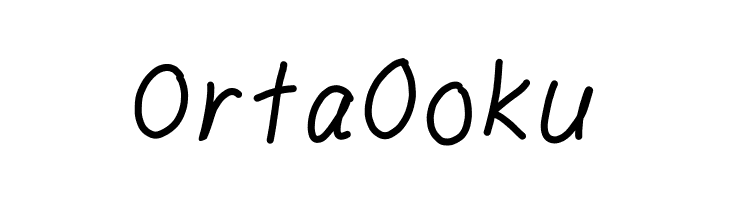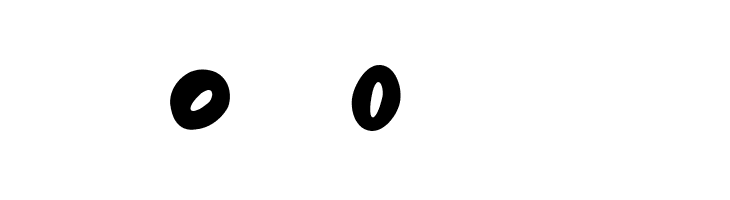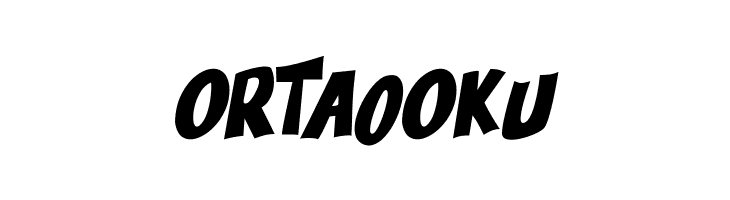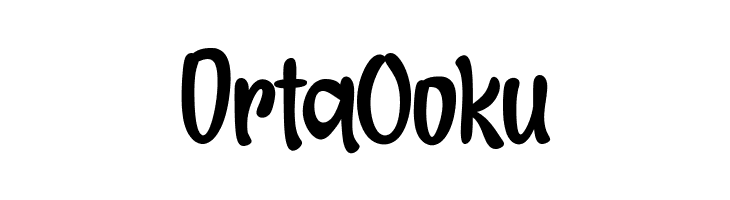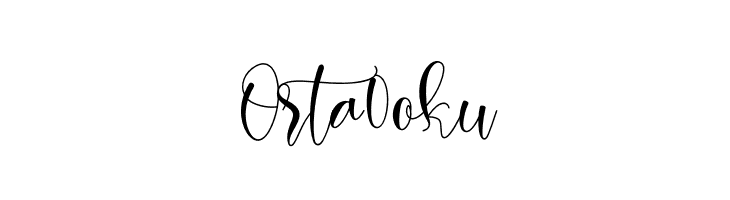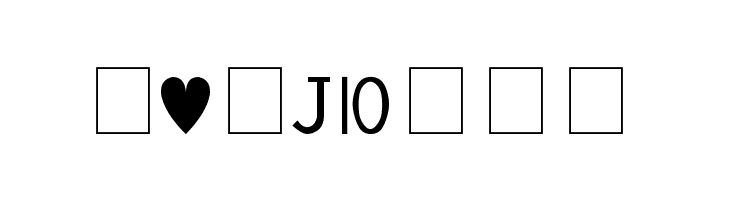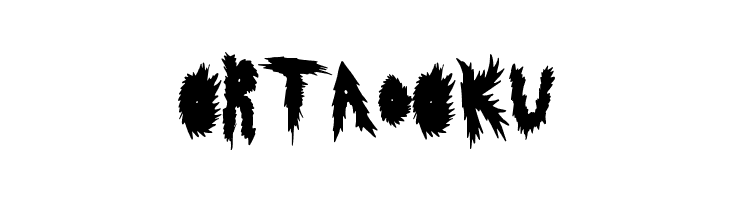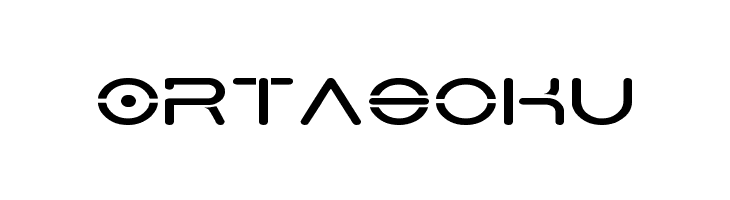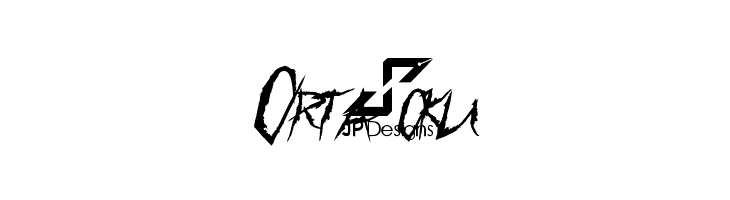
• Honey Mango
A playful, handwritten font with bold, rounded characters.
• Hooliday
( Fonts by Rahagita )
A playful, bold font with rounded, thick strokes and a whimsical style.
• Horror & Dead DEMO
A jagged, eerie font with sharp, irregular strokes ideal for horror themes.
• HorusN
( Ricardo II )
A futuristic, segmented font with geometric and digital aesthetics.
• Hosbela
A flowing, cursive font with elegant loops and swashes, ideal for artistic projects.
• Hot August Night
A casual, handwritten font with a playful and approachable style.
• HotFlash
A bold, jagged font with a fiery, energetic design.
• Houston Comics Personal Use
( Fonts by Kurnia Setyadi )
A bold, dynamic font with angular strokes and a playful, energetic style.
• Howell Rode
An elegant, flowing script font with ornate uppercase and smooth lowercase letters.
• Hoyle Playing Cards